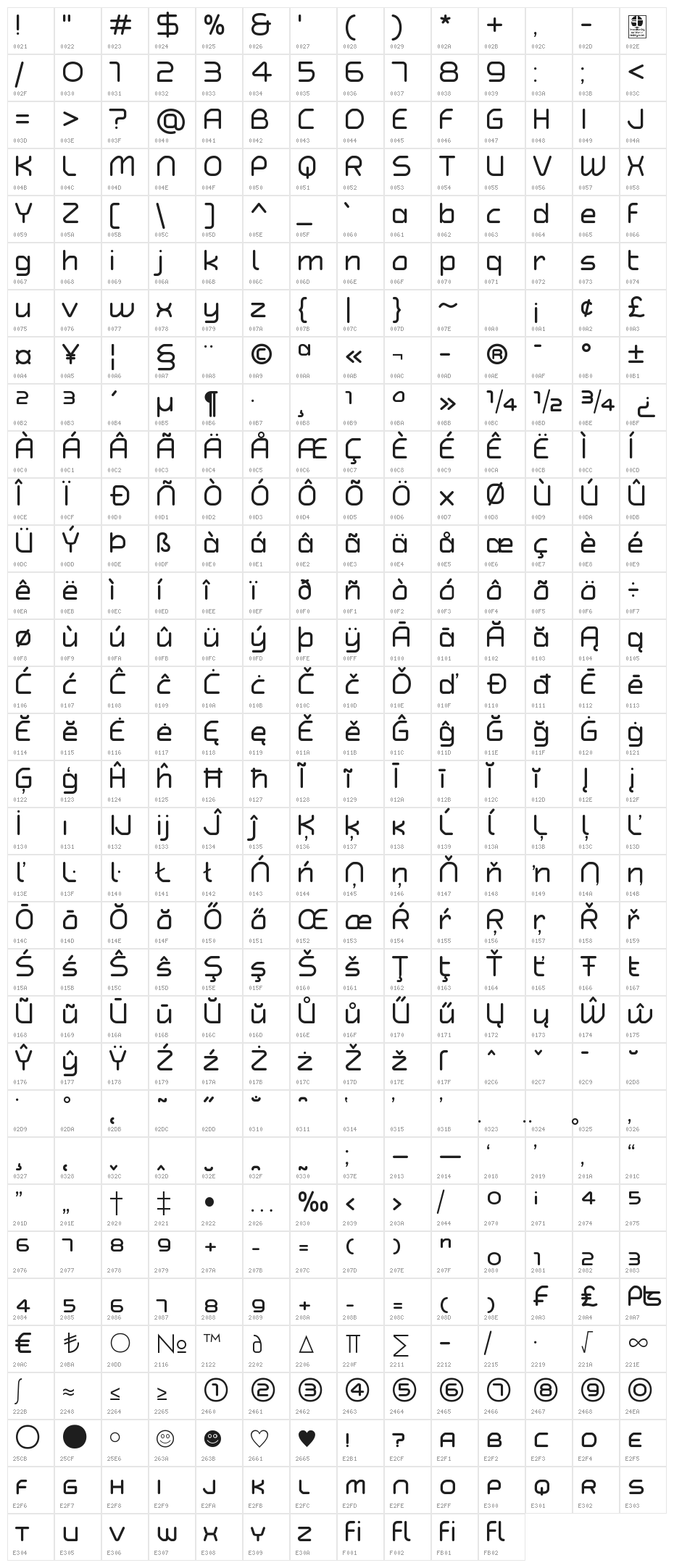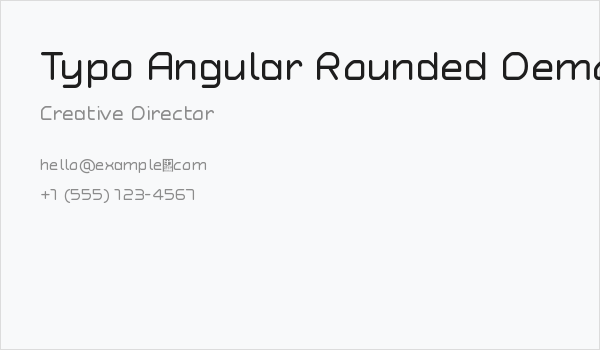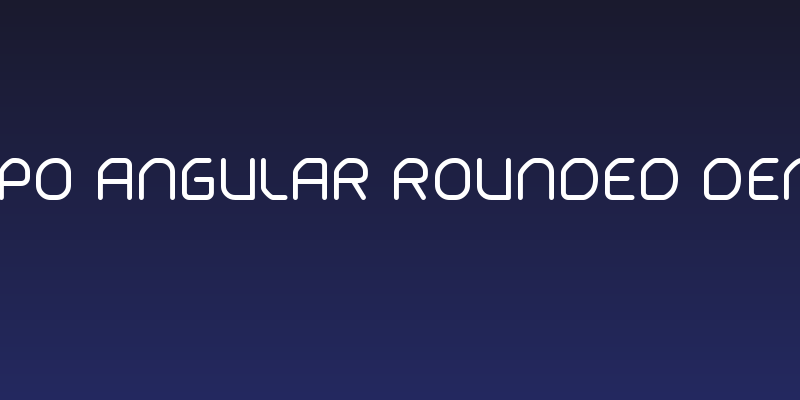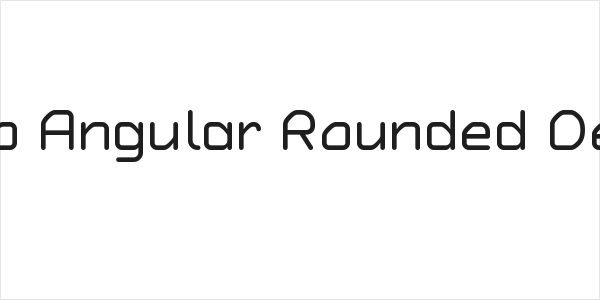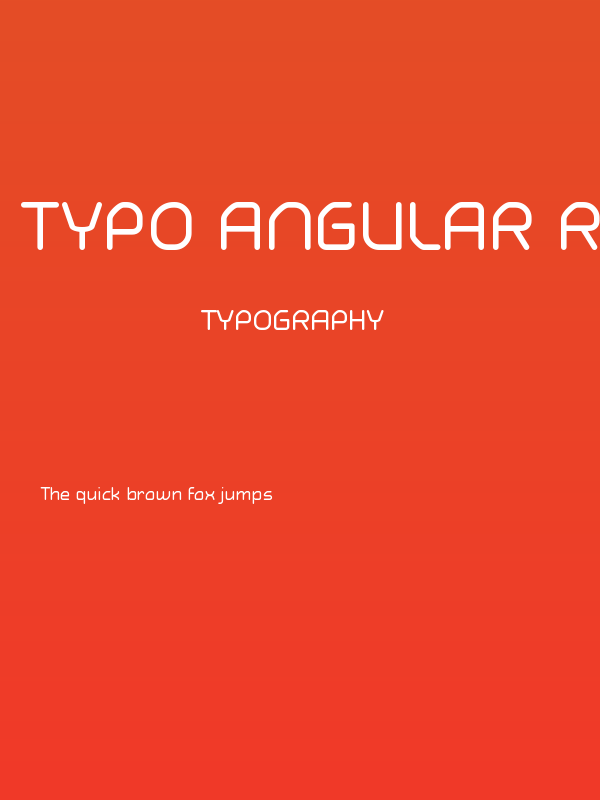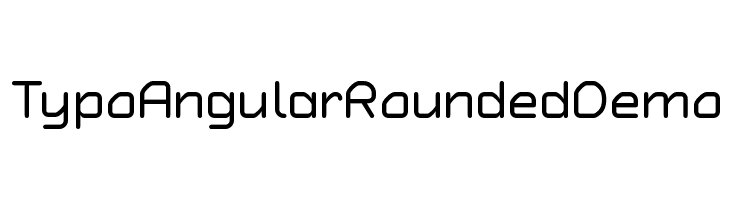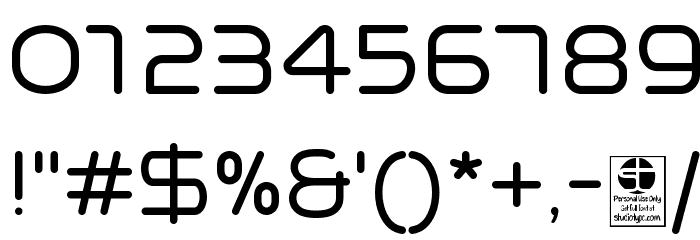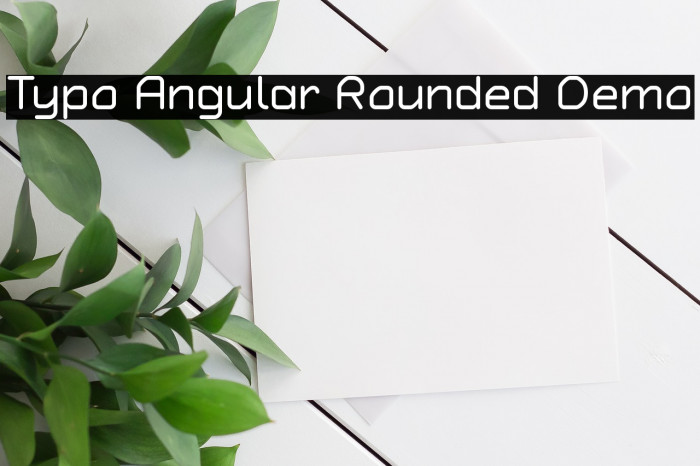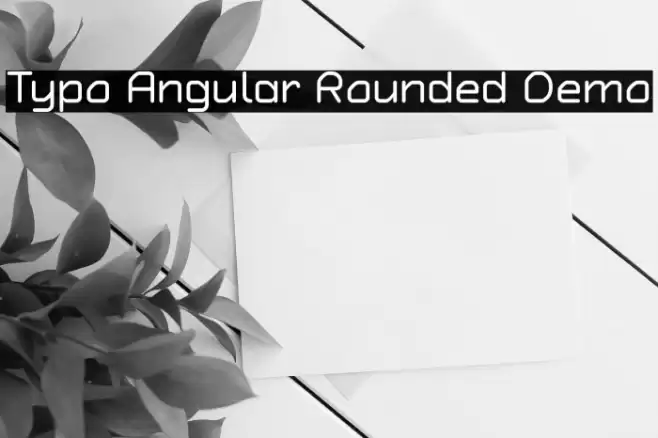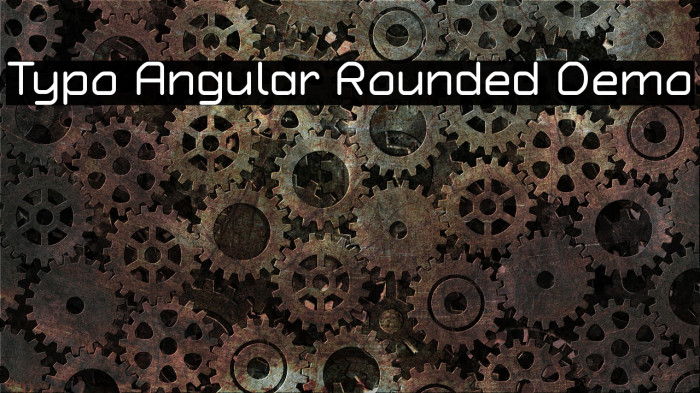
Typo Angular Rounded Demo Font
Typo Angular Rounded Demo Description
This font features a modern, rounded design with a geometric structure. Each character is crafted with smooth curves and a consistent stroke width, giving it a clean and approachable appearance. The rounded edges soften the overall look, making it suitable for friendly and contemporary designs. The uniformity in the letterforms ensures readability while maintaining a unique style. The numbers and special characters follow the same design principles, ensuring consistency throughout the typeface.
| Use Case | Logos, Headlines, User Interfaces |
| Proposed Projects | Ideal for tech branding, user interfaces, children's books, and modern advertising. |